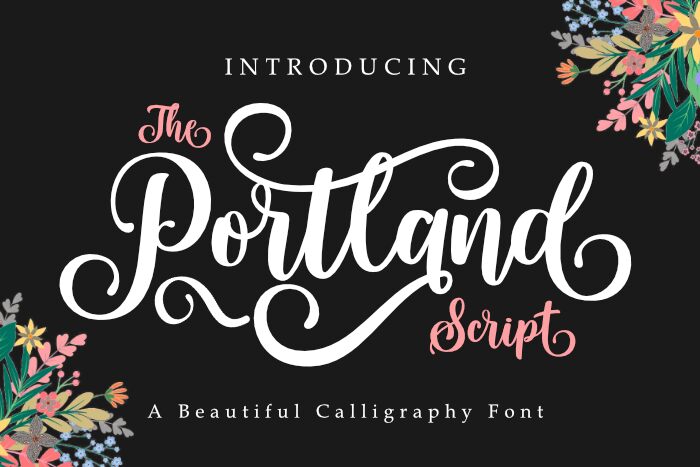
Portland Script is a light and elegant calligraphy font designed by Andri Ardianto & Madatype Studio. Its flowing strokes and sophisticated style make it perfect for projects that require a touch of refinement and luxury, such as wedding invitations, greeting cards, or product packaging. Use it to add a touch of class and elegance to your designs, or to create a sense of timeless beauty and charm. Portland Script is the perfect font for anyone looking to add a touch of sophistication to their work.